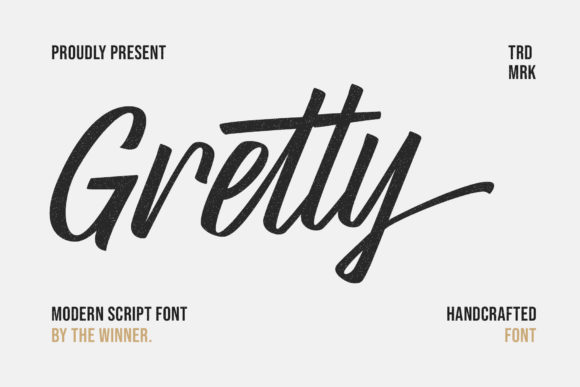
The Spontaneous Elegance of Gretty Script
Every so often, a typeface comes along that feels less like a set of digital vectors and more like a captured moment. Gretty Script is that kind of design asset. It doesn't try to mimic the rigid perfection of a machine; instead, it embraces the organic flow of the human hand. This script font was designed spontaneously, resulting in a gorgeous, unique aesthetic that balances a neat structure with a free-spirited personality. If you have ever struggled to find a font that feels personal yet professional, Gretty Script offers a compelling solution for modern typography enthusiasts.
Visually, Gretty Script is defined by its fluid connectivity and distinct rhythm. Unlike many handwritten fonts that can look messy or chaotic, this typeface maintains a high level of legibility. The letterforms feature varied stroke weights that mimic the pressure of a real pen, giving the text a sense of depth and movement. It is a premium font that avoids the stiffness of standard office fonts. When you type with Gretty Script, you see a harmonious dance between loops and lines, creating a texture that draws the eye without overwhelming it. It feels warm, inviting, and undeniably human.
Where Spontaneous Typography Shines
Understanding where a font like this works best is key to unlocking its potential. Because Gretty Script was designed with specific contexts in mind, it excels in projects that require a touch of intimacy and elegance. The most obvious application is in wedding cards and event stationery. The font’s gentle curves evoke romance and celebration, making it perfect for save-the-dates, invitations, and thank-you notes. It brings a bespoke quality to print that standard serif or sans serif fonts simply cannot replicate.
Beyond the wedding aisle, Gretty Script is a powerful tool for brand identity. For entrepreneurs and small business owners in the lifestyle, beauty, or artisan food sectors, this font can become the cornerstone of a visual identity. Imagine a boutique bakery logo or the branding for a handmade soap company; Gretty Script communicates care, quality, and a personal touch. It works beautifully for logo design when paired correctly, offering a distinct voice that stands out in a crowded market.
For social media graphics, the font is equally effective. In the fast-scrolling environment of Instagram or Pinterest, static text often gets ignored. However, the dynamic nature of Gretty Script catches the eye. It is ideal for creating quote graphics, announcement posts, or header images for blogs. Content creators and bloggers can use it to add personality to their visuals, ensuring their posts look distinct and professionally crafted. It turns ordinary text into beautiful stationary art, even in a digital format.
Mastering Visual Hierarchy and Brand Perception
A font does more than just spell out words; it shapes how the audience perceives the message. Using Gretty Script strategically can significantly influence visual hierarchy within your designs. Because it is a display-oriented typeface, it commands attention. It naturally draws the reader's eye to the most important information, such as a headline or a product name. By using Gretty Script for your primary focal points and pairing it with a more neutral body font, you create a clear path for the reader to follow.
This choice also impacts brand perception. Typography speaks volumes about a brand's personality. Choosing a script font like Gretty Script suggests that your brand values creativity, elegance, and approachability. It moves your brand away from the cold, corporate feel of industrial sans-serifs and toward a more human-centric model. For packaging design, this can be the deciding factor on a shelf. A product that features handwritten typography often feels more authentic and trustworthy to consumers looking for artisanal or high-quality goods.
However, readability is the ultimate test of any typeface. While Gretty Script is designed to be neat, it is still a script font. It performs best at larger sizes, such as in editorial design headers or website banners. In web design, it is best used for hero text or call-to-action buttons rather than body copy. Ensuring that your text is legible across different devices and screen sizes is crucial. Always test the font at the size it will be viewed to ensure the spontaneous flourishes don't hinder comprehension.
Practical Integration and Font Pairing
One of the most critical skills in design is knowing how to combine typefaces. Gretty Script pairs exceptionally well with structured, geometric fonts. To create a balanced composition, try pairing it with a clean sans serif font like Montserrat or Raleway. The simplicity of the sans-serif allows the intricate details of Gretty Script to take center stage without creating visual clutter. This combination is a staple in modern typography because it offers contrast while maintaining harmony.
If you are working on a project that requires a more traditional look, you can also pair Gretty Script with a classic serif font. This works particularly well for formal invitations or luxury branding. The key is to ensure that the weights and sizes are balanced. You want the two fonts to complement each other, not compete for dominance. Treat your font choices as a team where Gretty Script is the star player and the supporting font provides the necessary structure.
Gretty Script is more than just a set of characters; it is a tool for connection. Whether you are designing a wedding invitation, crafting a brand identity, or creating engaging digital content, this font brings a level of spontaneity and elegance that resonates with audiences. It proves that in a world of standardized text, there is still immense power in the human touch.